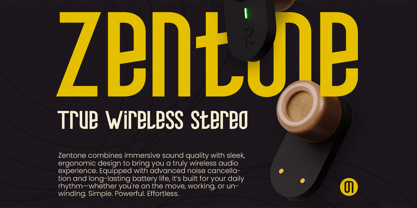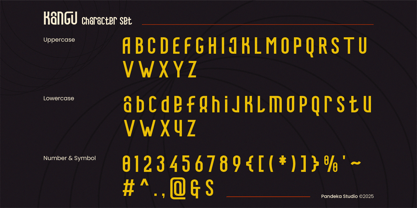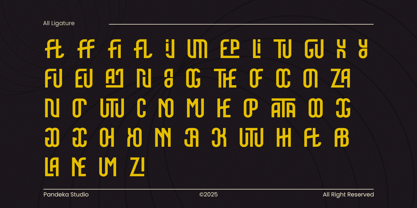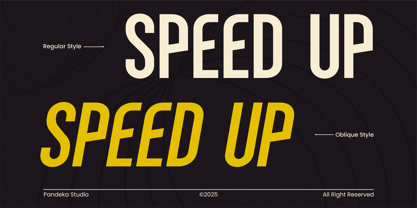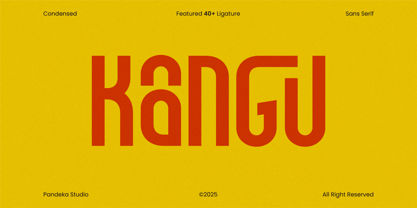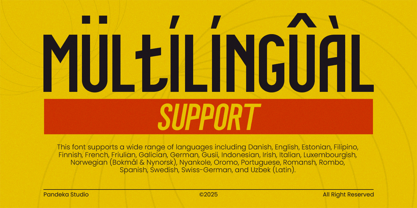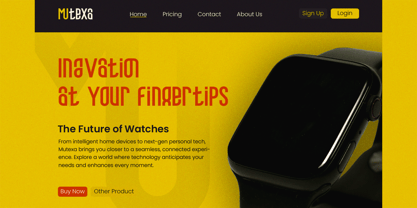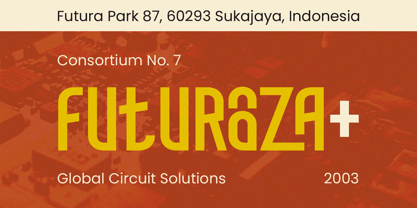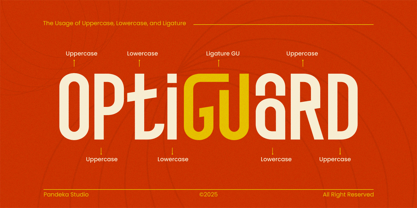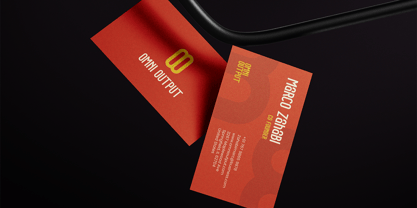
Kangu
Die Schriftfamilie Kangu wurde von Sagara Nararya entworfen und von Pandeka Studio veröffentlicht. Kangu enthält 2 Stile und Familienpaketoptionen.
Kangu is a bold, futuristic sans-serif font crafted for innovation-driven designs. With its sharp angles and dynamic style, Kangu perfectly fits tech branding, esports, automotive, and modern advertising. The font features uppercase, lowercase, numbers, punctuation, and multilingual support, making it highly versatile for diverse projects aiming to deliver a cutting-edge impact.
• 2 Style: Regular and Oblique
• Full Character Set: Uppercase, lowercase, numbers, symbols, and punctuation
• 40+ Ligatures and alternates